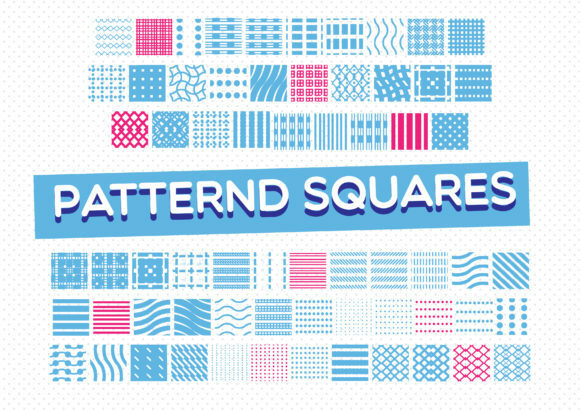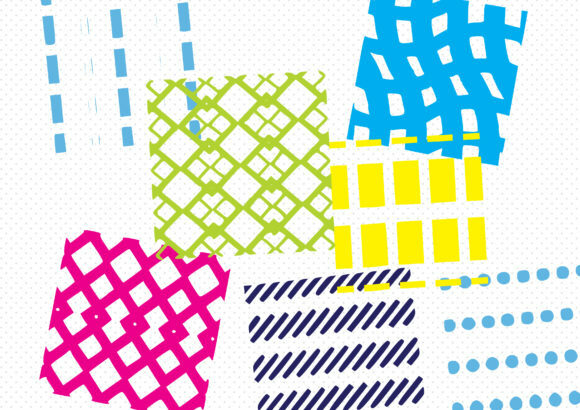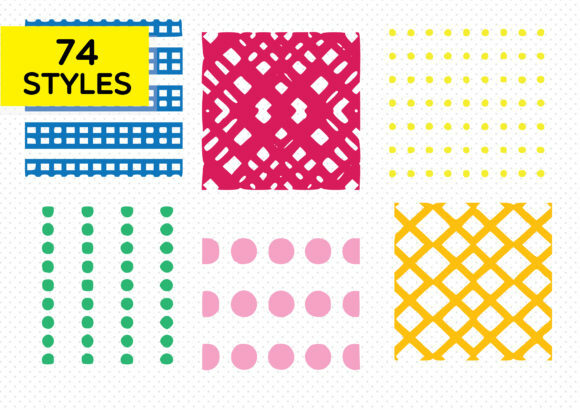
Patterned Squares Font
About Patterned Squares Font
Patterned Squares is indeed a fun and versatile dingbats font that can bring a unique touch to your design projects. With its collection of patterned squares in various styles and designs, you have the opportunity to add visual interest and texture to your designs in a quick and easy way. Here are a few ways you can utilize the Patterned Squares dingbats font:
1. Backgrounds and Textures: Use the patterned squares as backgrounds or textures in your designs. Whether you’re working on digital graphics, print materials, or even web design, the patterned squares can serve as a captivating backdrop that adds depth and dimension to your composition. Experiment with different colors, sizes, and arrangements to create visually appealing backgrounds.
2. Borders and Frames: Incorporate the patterned squares as borders or frames around your content. Whether it’s for images, text, or other design elements, the patterned squares can provide a decorative and eye-catching border that enhances the overall aesthetics of your design. Play with different combinations of patterned squares to create unique border patterns.
3. Patterns and Patterns: Arrange the patterned squares in a repeating pattern to create visually appealing pattern designs. This can be useful for various applications such as fabric designs, wallpapers, or even wrapping paper. Experiment with different arrangements and color schemes to achieve the desired effect.
4. Iconography: Utilize the patterned squares as unique icons or symbols in your design projects. The variety of designs and styles available in the dingbats font can be used to represent different concepts or ideas. Use them in user interfaces, infographics, or any design where you need visually engaging icons.
5. Scrapbooking and Crafts: If you enjoy scrapbooking or crafting, the patterned squares can be a valuable addition to your projects. Use them to decorate photo albums, create handmade cards, or enhance journal pages. The versatility of the patterned squares allows you to create customized designs that match the theme and style of your crafting project.
Remember to experiment and explore different ways to use the patterned squares in your designs. The unique patterns and designs within the dingbats font offer endless creative possibilities. Whether you’re adding some flair to a digital graphic or creating a handmade craft, the Patterned Squares dingbats font can be a valuable asset to enhance your design projects.